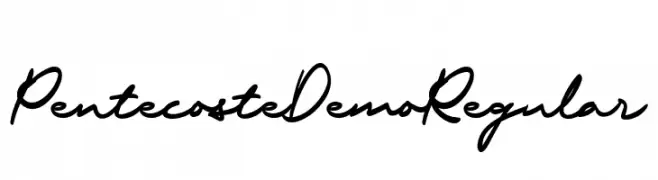
A dynamic, expressive handwritten font with fluid, connected strokes.
An elegant script font with flowing, interconnected letters and graceful flourishes.
A playful, casual handwritten font with smooth curves and a whimsical style.
A lively, flowing script font with a natural handwriting style.
A lively and elegant script font with smooth, cursive letterforms.